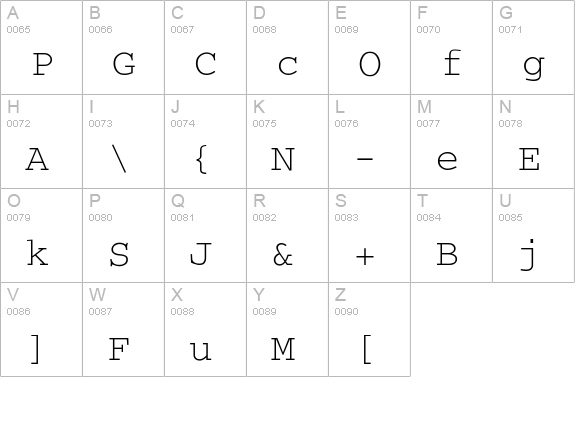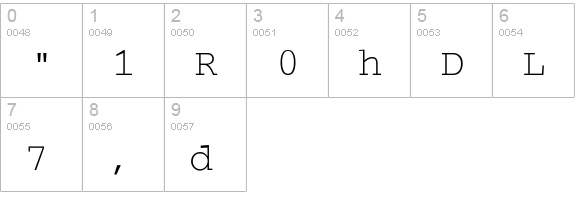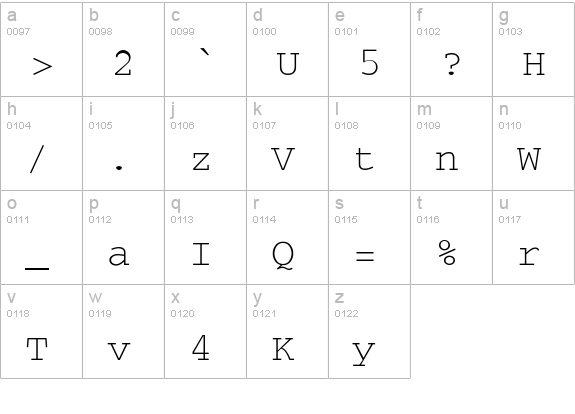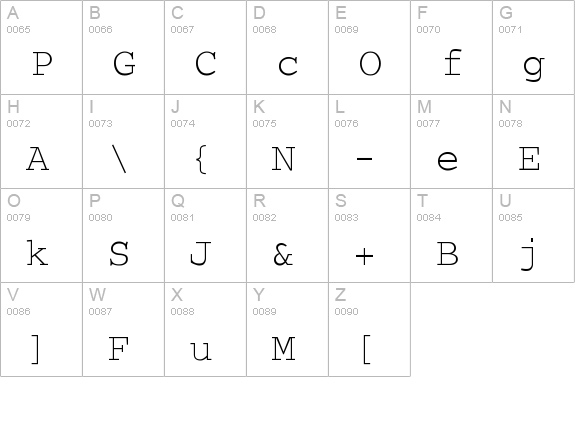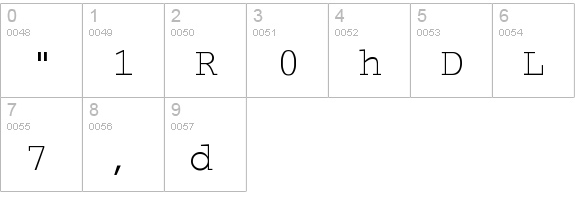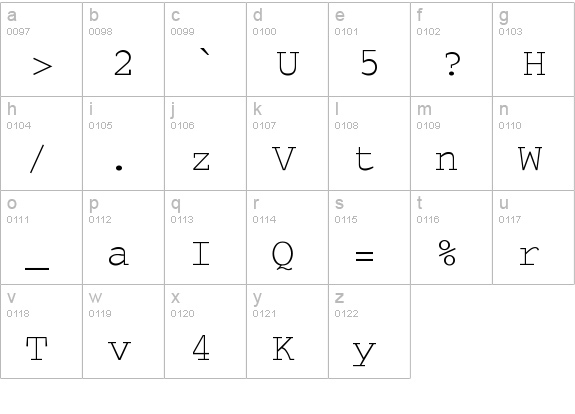
SecretCode-Normal is the standard, neutral variant in the SecretCode typeface family \xE2\x80\x94 well suited to general body text, paragraphs, and standard typographic work.
Introducing SecretCode-Normal font, a captivating and versatile typeface that is sure to add a touch of mystery and intrigue to your designs. This font is perfect for those seeking a balance between elegance and edginess, making it suitable for a wide range of creative projects. SecretCode-Normal font showcases a unique blend of sharp angles and smooth curves, creating an eye-catching visual appeal that is bound to captivate your audience. Its clean and modern design allows for effortless readability, ensuring that your message is conveyed with clarity and style. What sets SecretCode-Normal font apart is its ability to evoke a sense of secrecy and exclusivity. Its subtle yet commanding presence on any design project will leave a lasting impression on viewers. Whether you're designing a logo, creating a poster, or crafting a website, SecretCode-Normal font will effortlessly elevate your work to the next level. Best of all, SecretCode-Normal font is freely available to download at FontsMarket.com. This means that you can enjoy the benefits of this stunning typeface without any financial constraints. We believe that creativity should be accessible to all, and with SecretCode-Normal font, you can unleash your imagination without any limitations. So why wait? Embrace the allure of SecretCode-Normal font and take your designs to new heights. Download this extraordinary font from FontsMarket.com today and let your creativity run wild.